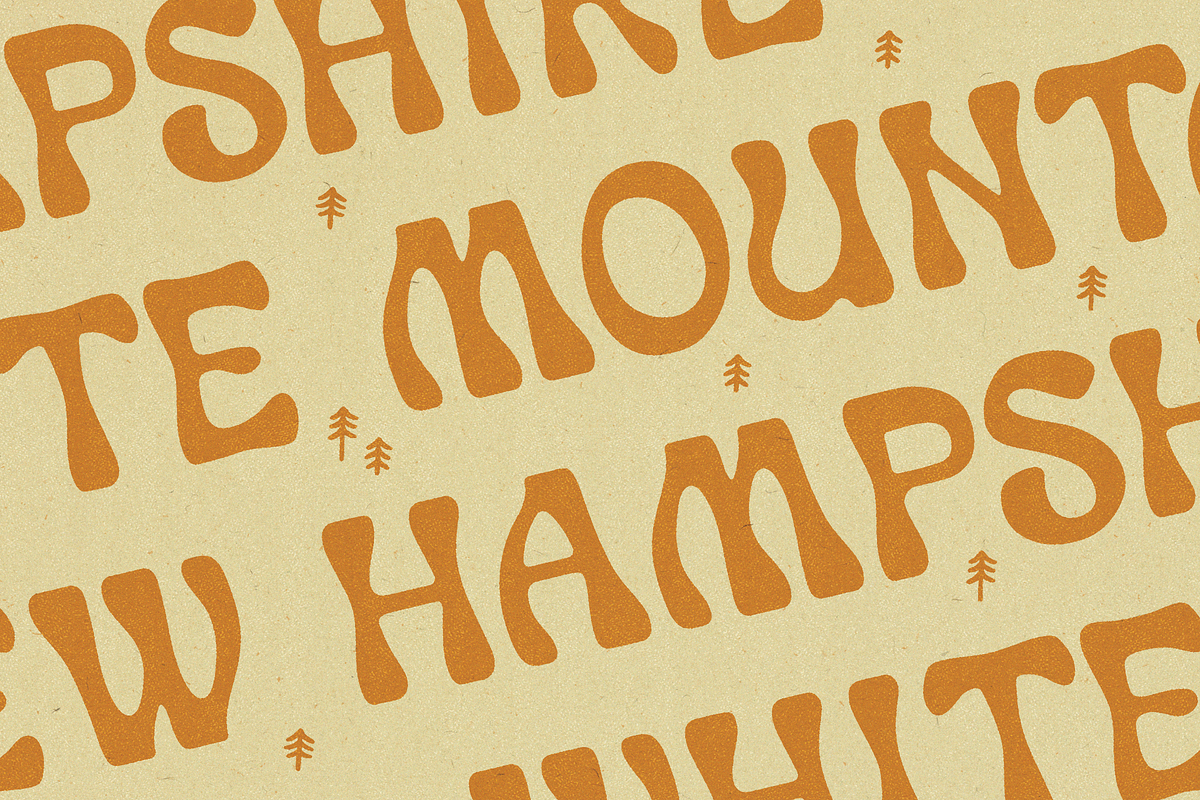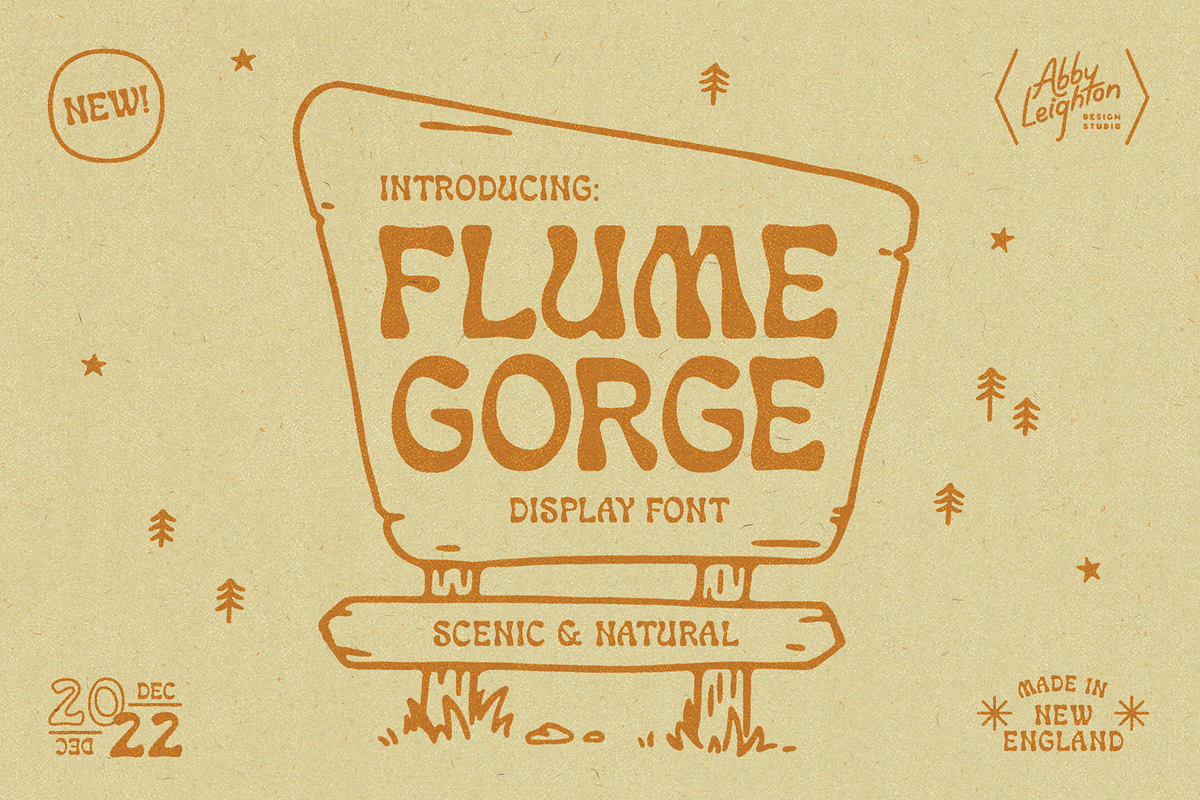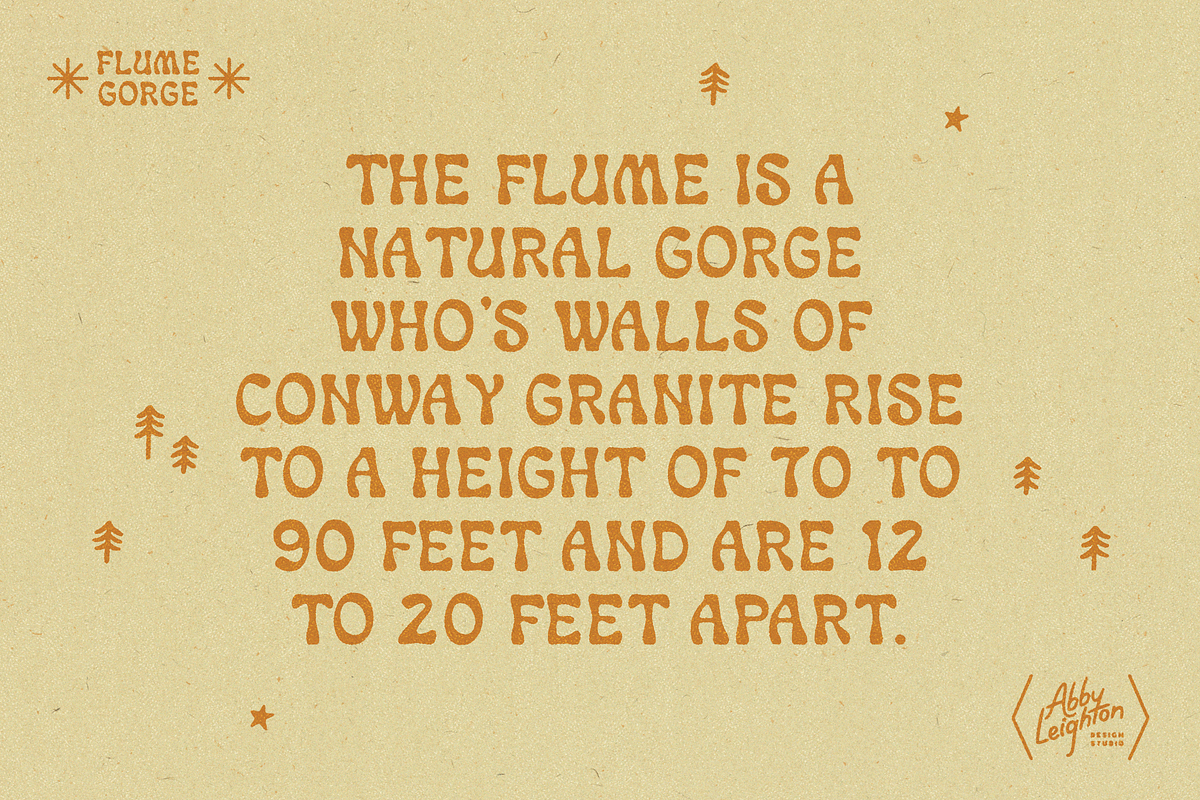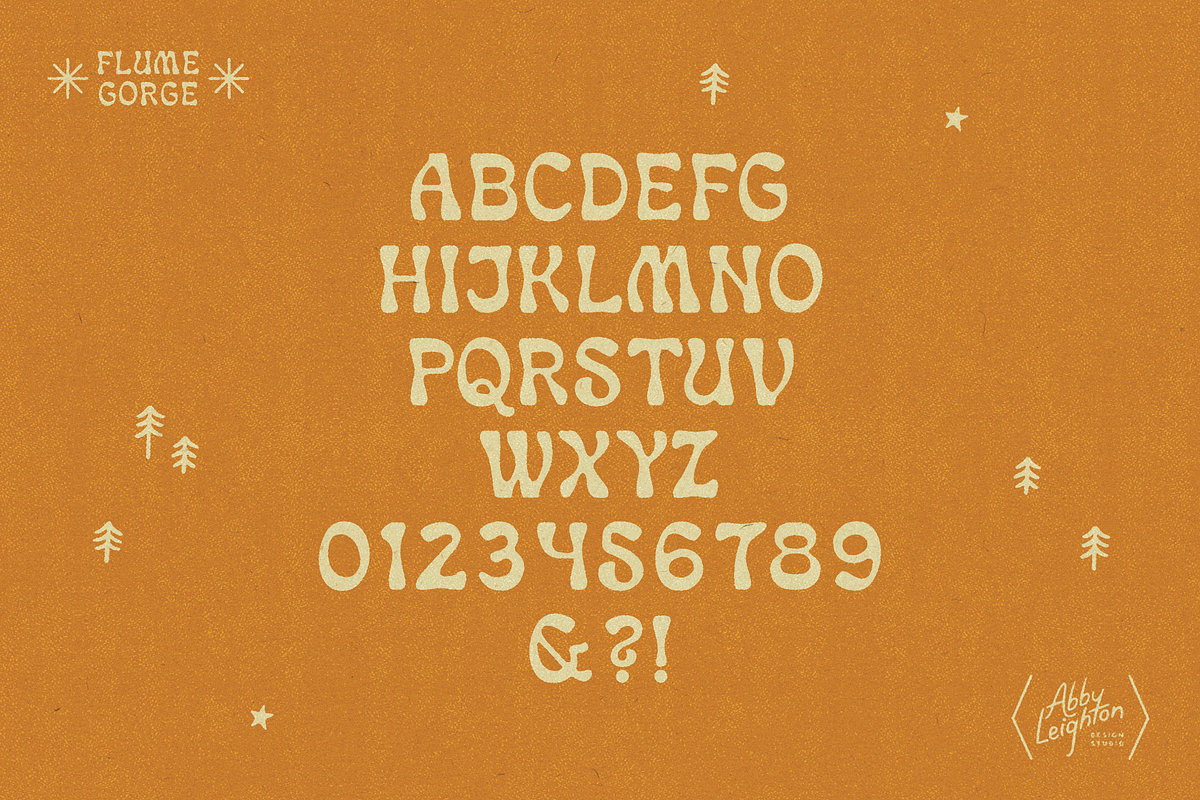
FLUME GORGE by Abby Leighton
Introducing FLUME GORGE- an art nouveau inspired font! This is my first font created only with the pen tool in illustrator- that means CLEAN LINES :) Try out this unique font for your next logo design project.